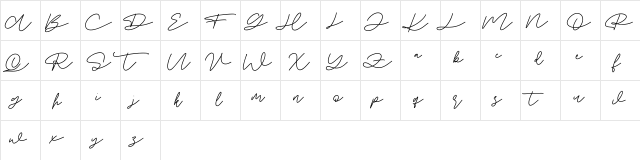
Amodia Charlote Free Regular
| Foundry | MaulanaCreative |
| Designer | MaulanaCreative |
Design Context for Amodia Charlote Free Typeface
Amodia Charlote Free is a composed and adaptable typeface that performs quietly and consistently across a wide range of design contexts.